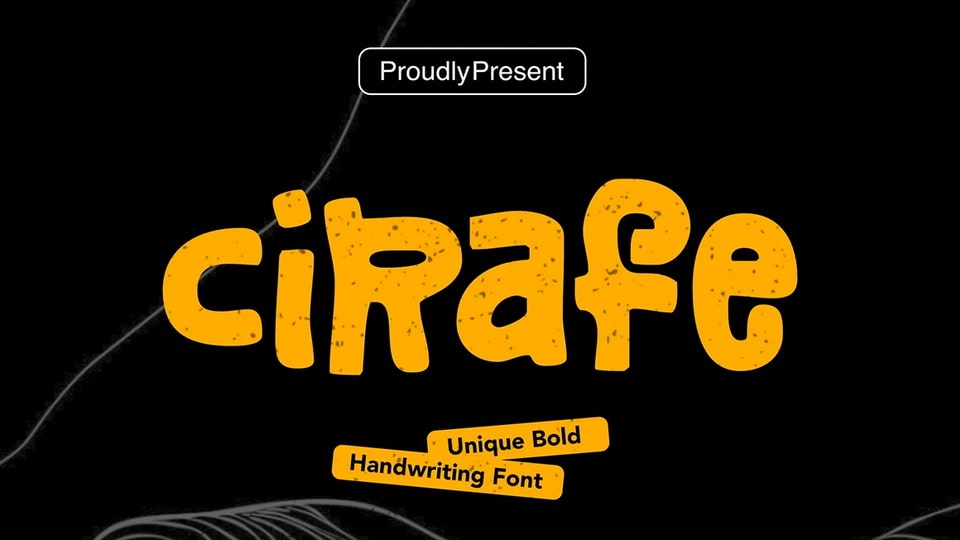
Download Cirafe font, a unique and bold handwriting typeface, crafted to bring personality and impact to any design. Its modern handwritten style combines expressive strokes with strong visual presence